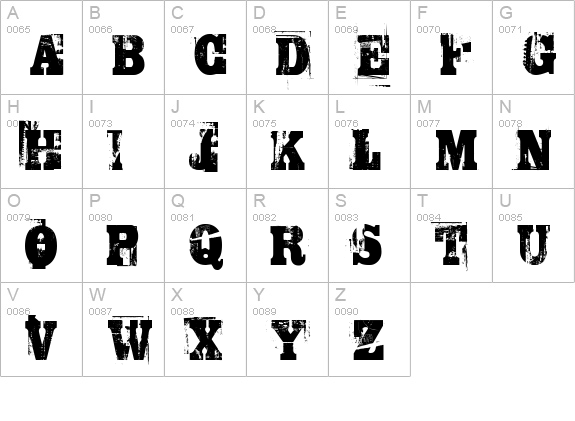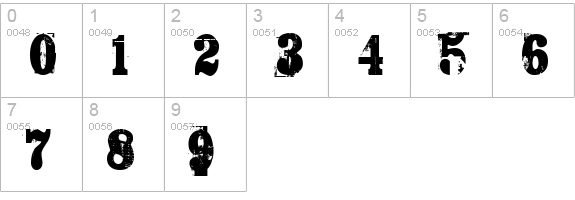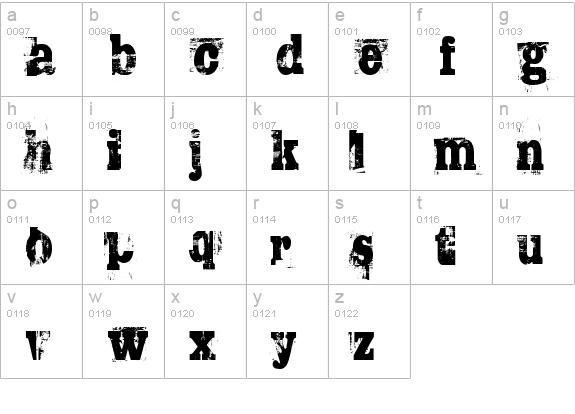
Introducing TRASHED font, a bold and edgy typeface that adds a touch of urban flair to any design project. Designed with an unmistakable grunge aesthetic, TRASHED font captures the raw energy and rebellious spirit of street art and underground culture. With its distressed and weathered appearance, TRASHED font is perfect for creating eye-catching headlines, logos, posters, and more. Its unique character set features jagged edges and irregular shapes, giving your text a gritty and authentic feel. Whether you're working on a punk rock album cover or a skateboard brand logo, TRASHED font adds an instant dose of urban attitude. But what's even better? TRASHED font is available for free! Yes, you read that right. This exceptional font can be downloaded without any cost at FontsMarket.com. Say goodbye to expensive licensing fees and hello to creative freedom. Download TRASHED font today and unleash your inner rebel. Let your designs speak volumes with this one-of-a-kind typeface. Whether you're a graphic designer, artist, or simply someone looking to add a touch of urban cool to your projects, TRASHED font is the perfect choice. Don't wait any longer - grab this free font and start making a statement today!